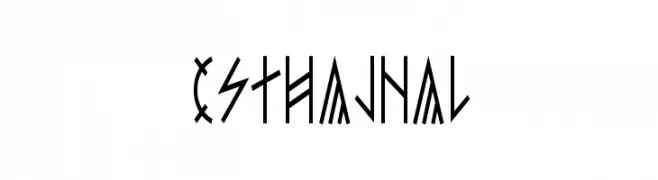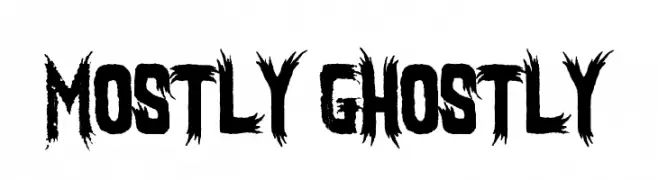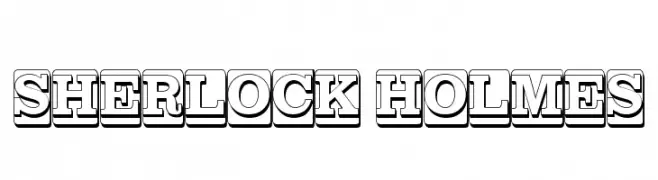
A collection of iconic bat-shaped symbols representing a superhero logo evolution.
A spooky, web-themed decorative font with a distressed, eerie style.
A bold, three-dimensional font with a shadowed effect, ideal for vintage-themed projects.
An abstract, decorative design with crescent and circular shapes, resembling a secret code.
A bold, distressed font with a spooky, ghostly aesthetic.
A jagged, eerie font with sharp edges and a gothic, hand-drawn style.
A decorative, alien-themed font with jagged, organic forms and a mysterious aesthetic.
A bold, angular font inspired by ancient runes with a modern edge.